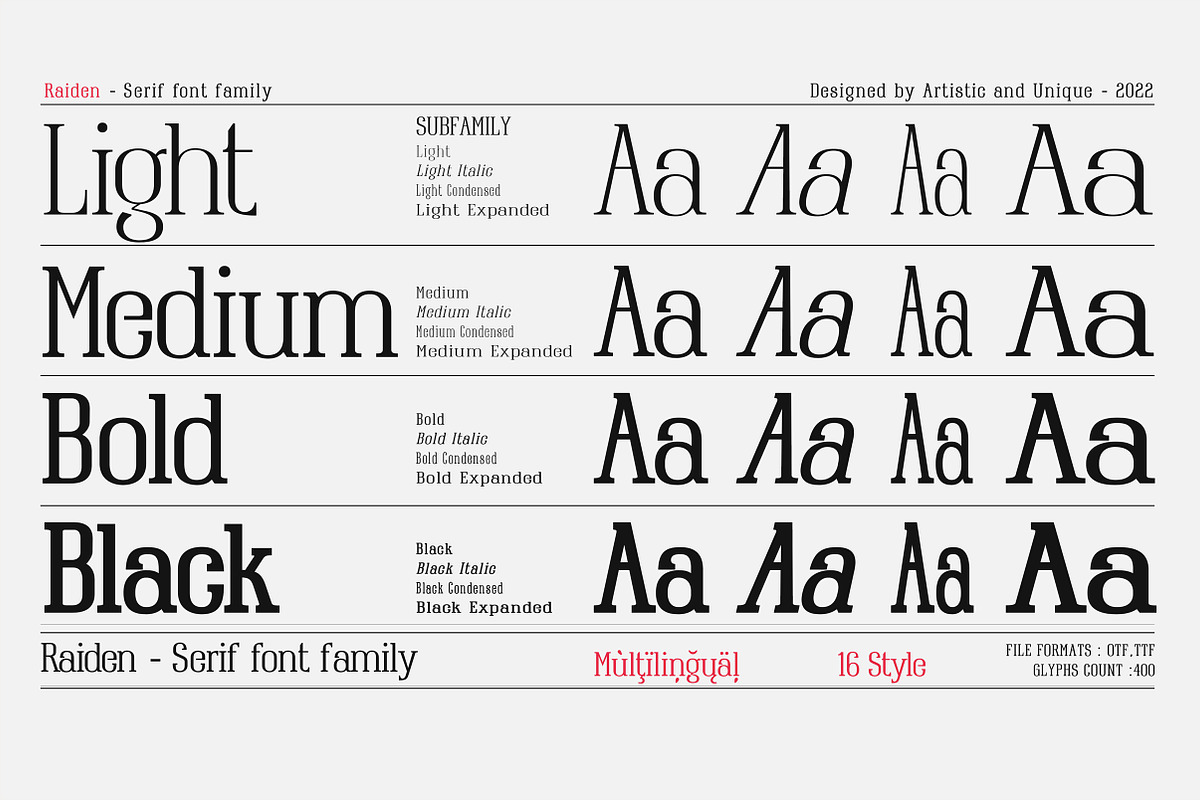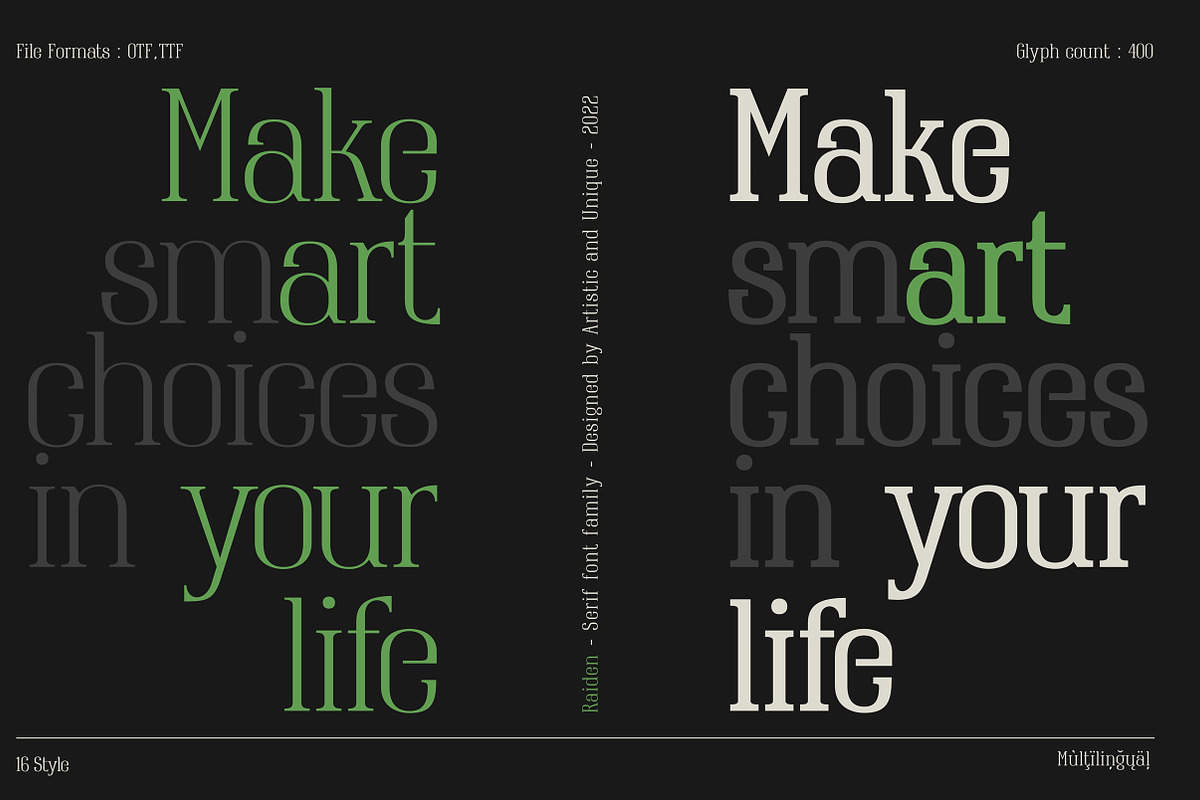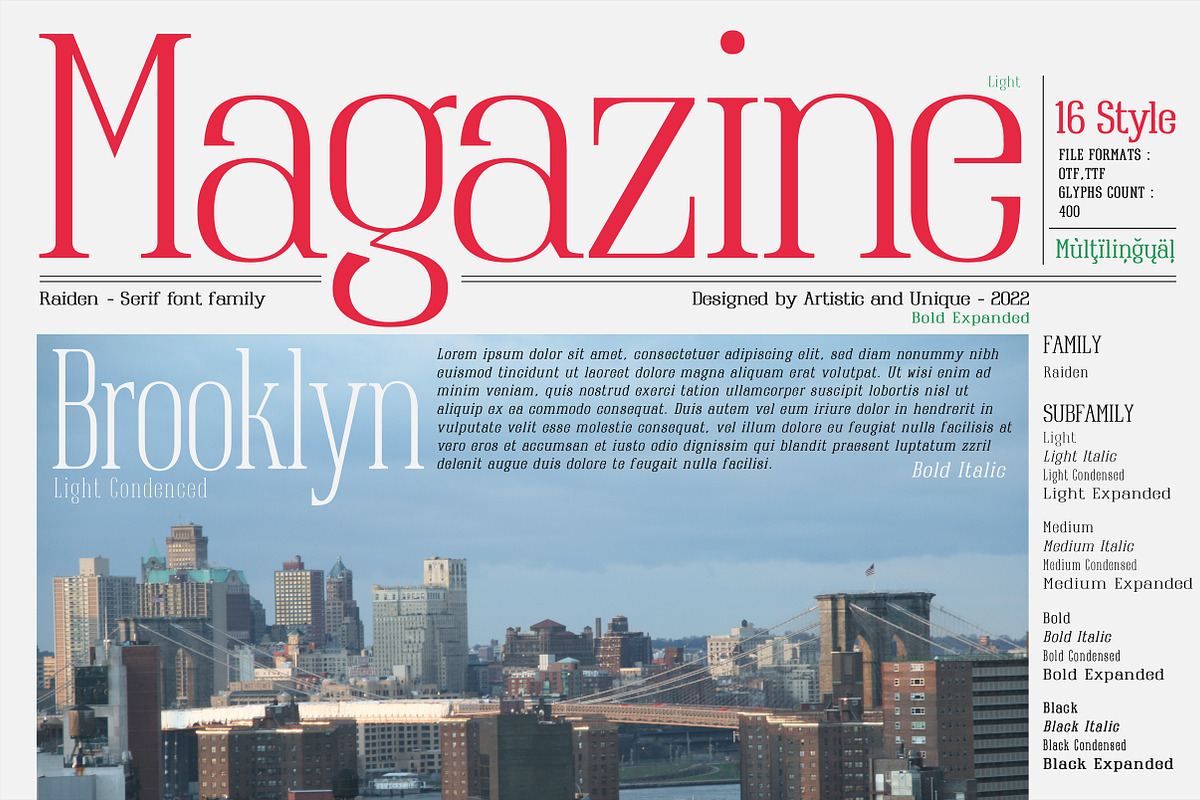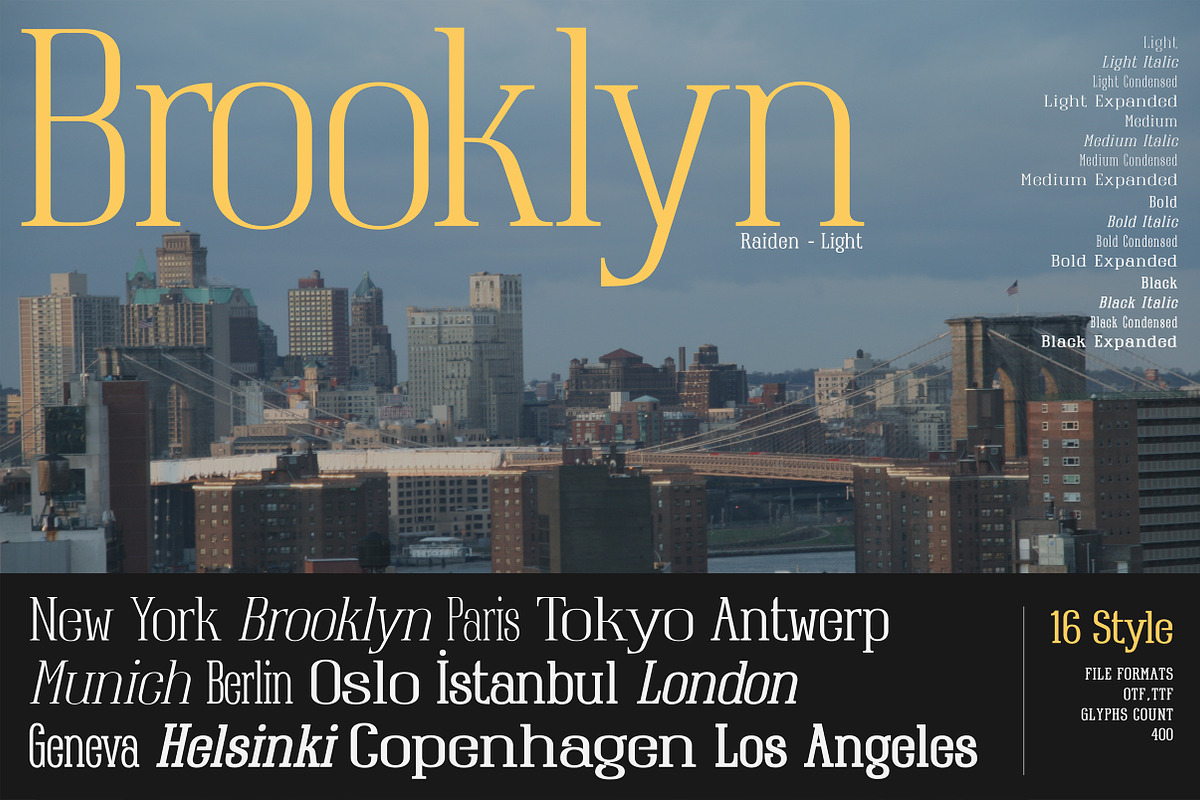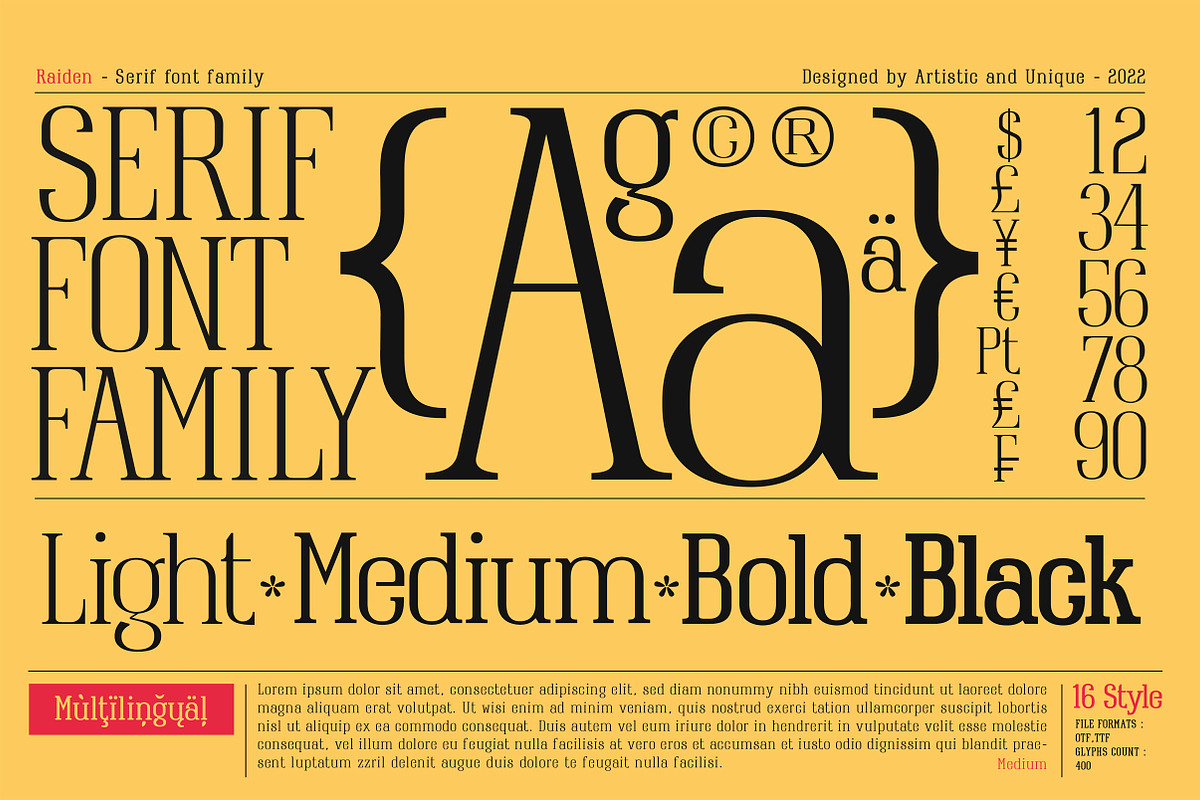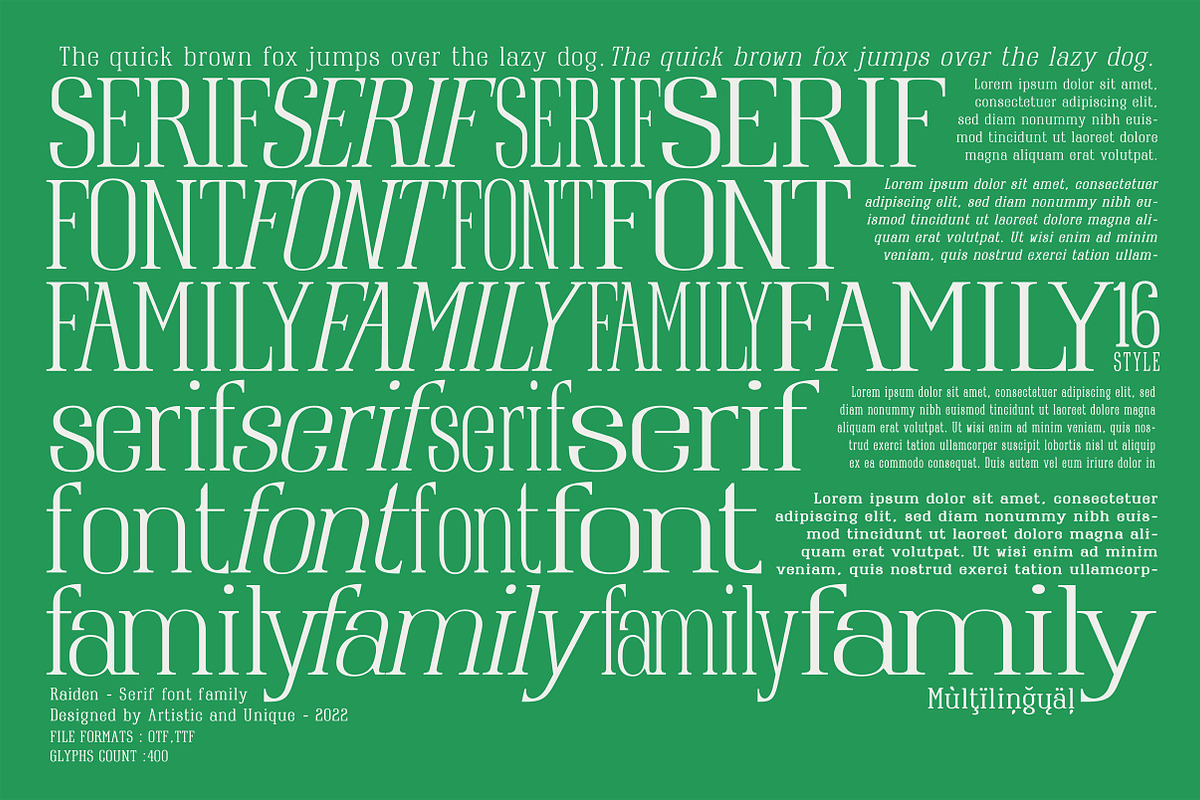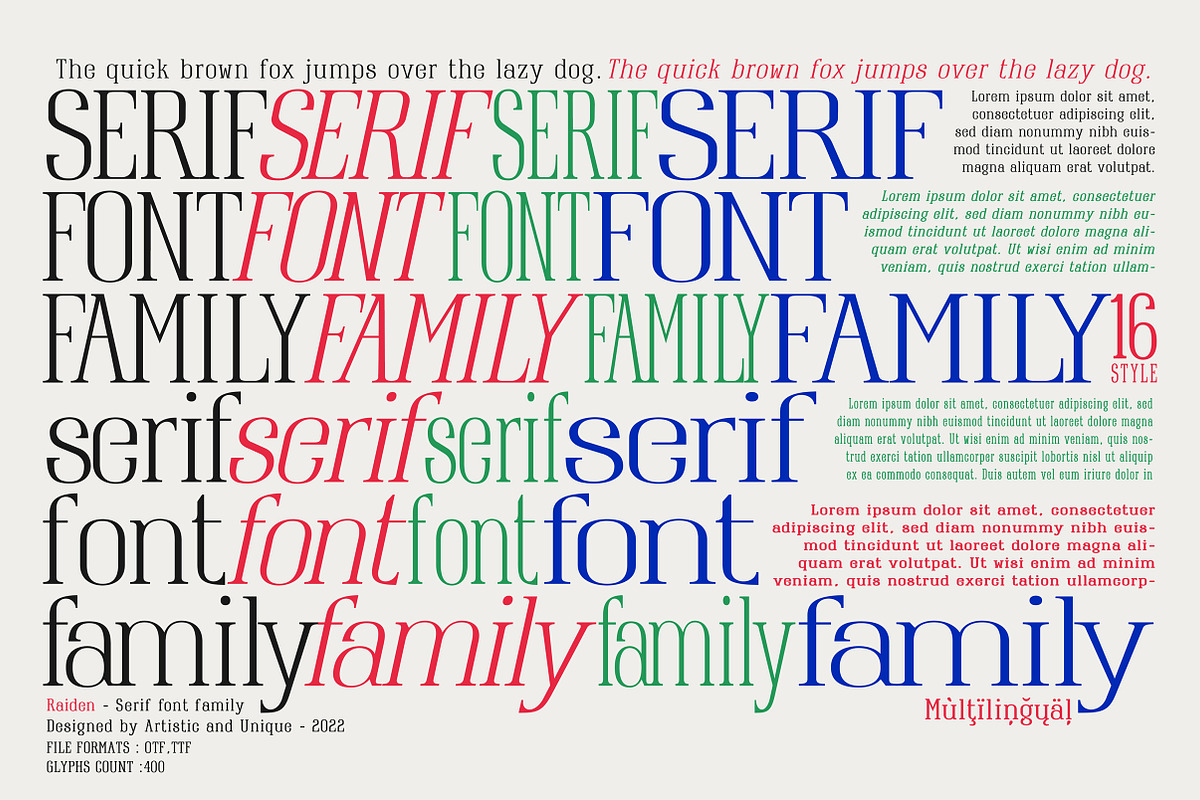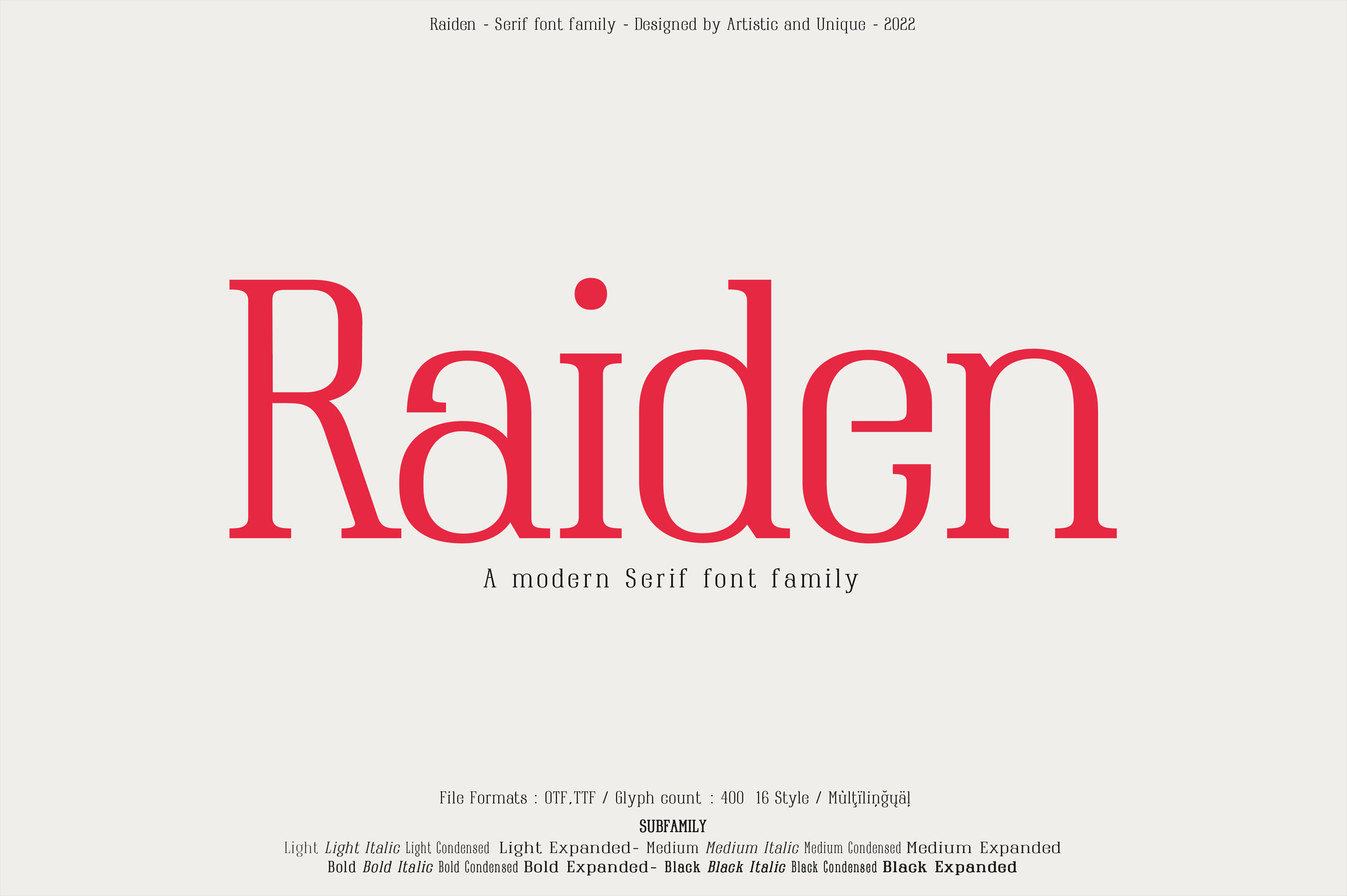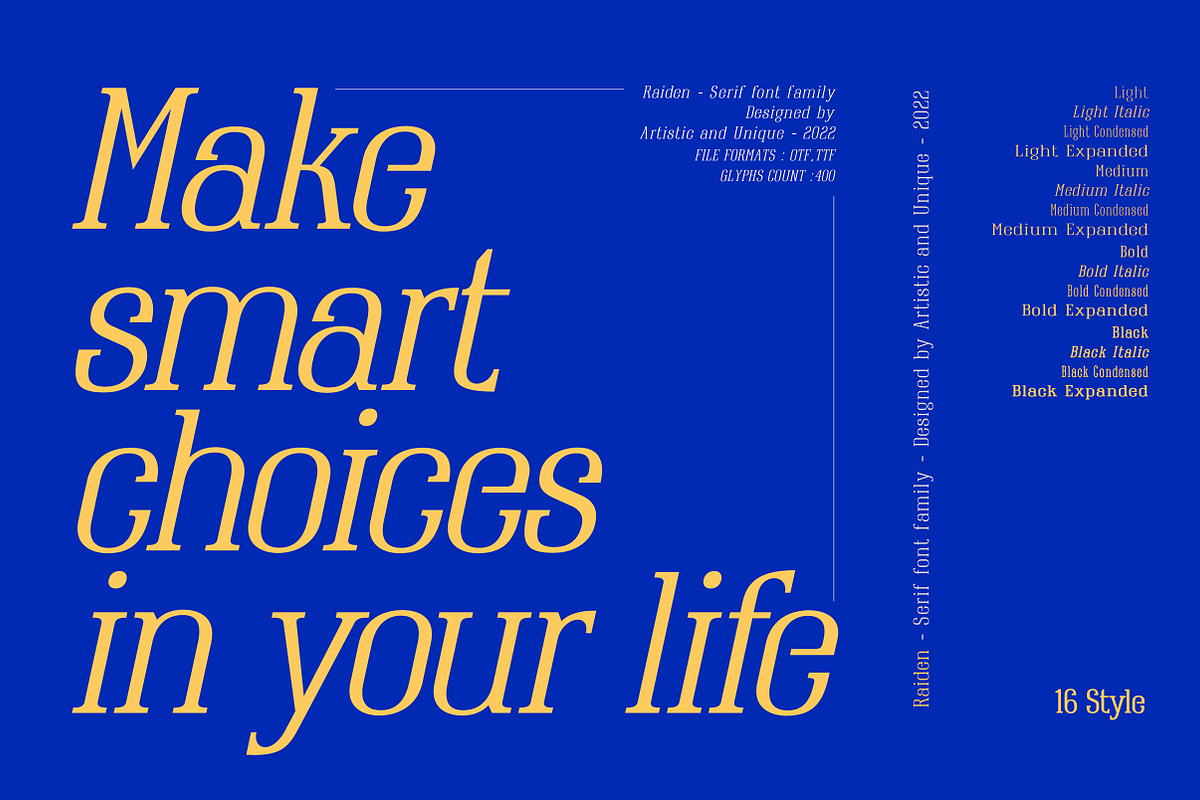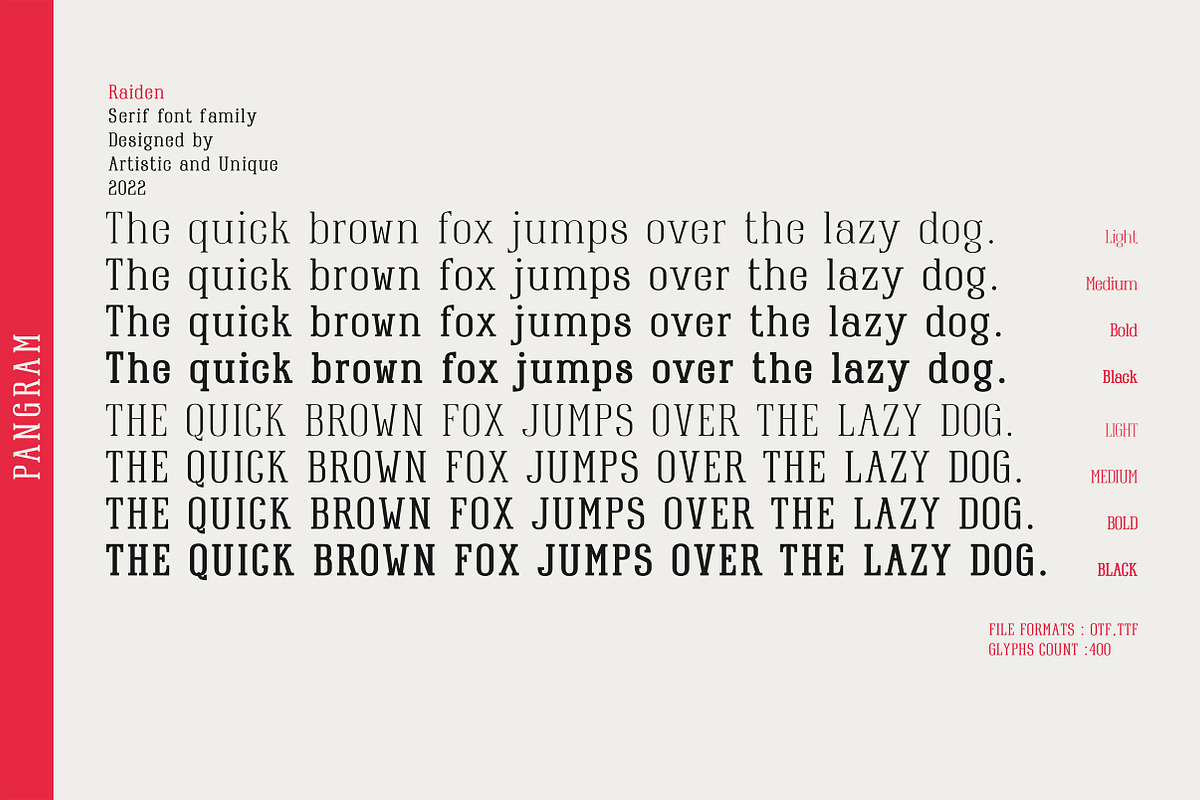
Raiden - Serif font family
Raiden serif font family has a different aesthetic appearance with its unique body structure, character height and width.
With its 400 glyphs, multilingual and 16 style different character designs, it can meet your needs in innovative pursuits. This feature makes Raiden a versatile font family that can be used in many different design projects. You can create creative and stylish designs with uppercase and lowercase letter combinations in the title and text.
It has a timeless structure where you can create your modern-elegant or classic design alternatives.
Great for books and magazines, newspapers, editorials, headlines, websites, logos, branding, advertising and more.
With this font you can create your unique designs.